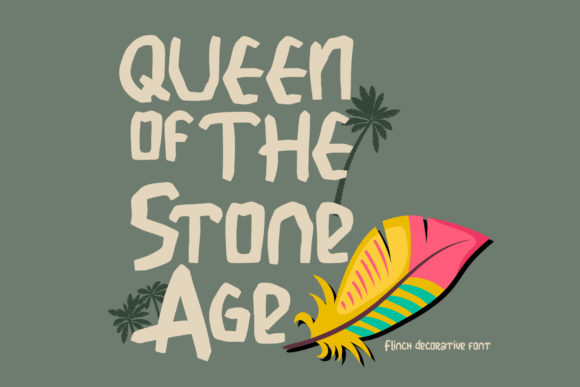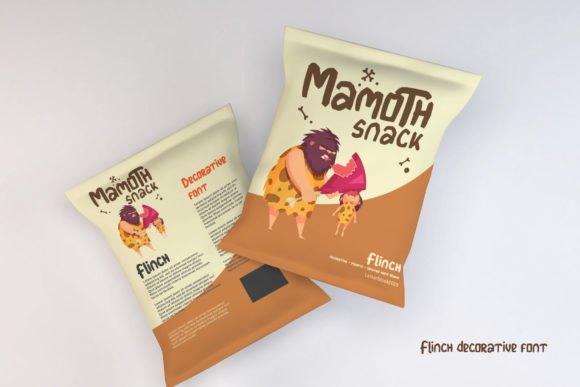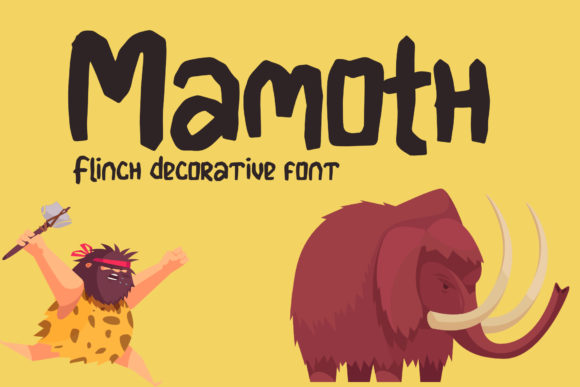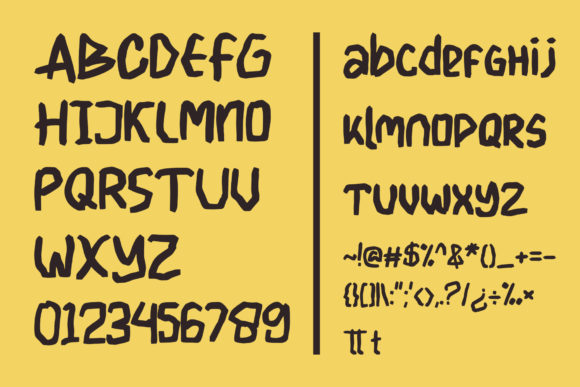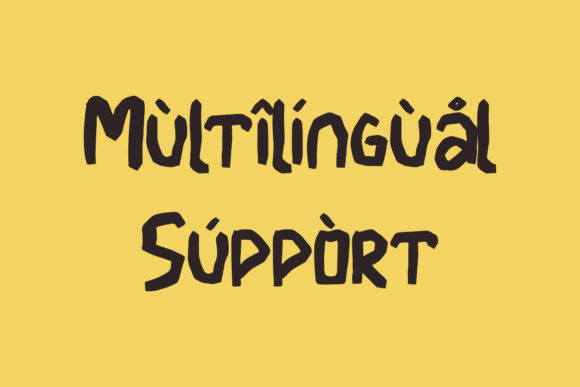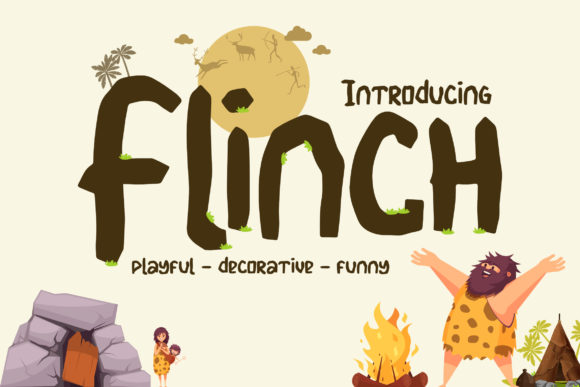
Introducing Flinch Font: The Playful and Versatile Display Font for Crafty Ideas
Are you a designer or crafter looking for a font that can add a touch of playfulness and whimsy to your projects? Look no further than Flinch Font, a fun and cartoon-like display font that’s perfect for a wide range of crafty ideas. In this article, we’ll take a closer look at Flinch Font, its features, and how you can use it to elevate your designs.
What is Flinch Font?
Flinch Font is a unique and original display font that’s designed to bring a smile to your face. With its playful and cartoon-like appearance, it’s perfect for adding a touch of personality to your designs. Whether you’re working on a letterhead, title, or stationery, Flinch Font is sure to make your project stand out.
Key Features of Flinch Font
So, what makes Flinch Font so special? Here are some of its key features:
- Playful and cartoon-like design: Flinch Font has a fun and whimsical design that’s perfect for adding a touch of personality to your projects.
- Versatile: Flinch Font is a display font that’s suitable for a wide range of crafty ideas, from letterheads and titles to stationery and more.
- Original look: Flinch Font has a unique and original look that will set your designs apart from the rest.
- Easy to read: Despite its playful design, Flinch Font is easy to read and understand, making it perfect for use in titles and headings.
How to Use Flinch Font in Your Designs
So, how can you use Flinch Font in your designs? Here are a few ideas to get you started:
- Letterheads and titles: Use Flinch Font to add a touch of personality to your letterheads and titles.
- Stationery: Add a playful touch to your stationery with Flinch Font.
- Signage: Use Flinch Font to create eye-catching signage that’s sure to grab attention.
- Digital graphics: Use Flinch Font to add a touch of whimsy to your digital graphics, such as social media graphics and blog posts.
Why Designers and Crafters Love Flinch Font
So, why do designers and crafters love Flinch Font? Here are a few reasons:
- Unique and original: Flinch Font has a unique and original look that sets it apart from other fonts.
- Playful and fun: Flinch Font is a fun and playful font that’s perfect for adding a touch of personality to your designs.
- Versatile: Flinch Font is a versatile font that can be used in a wide range of crafty ideas.
- Easy to use: Flinch Font is easy to use and can be easily integrated into your designs.
| Font Name | Flinch Font |
| Author | Gumacreative |
In conclusion, Flinch Font is a fun and playful display font that’s perfect for designers and crafters looking to add a touch of personality to their projects. With its unique and original look, Flinch Font is sure to make your designs stand out. Whether you’re working on a letterhead, title, or stationery, Flinch Font is a great choice. So why not give it a try and see how it can elevate your designs?